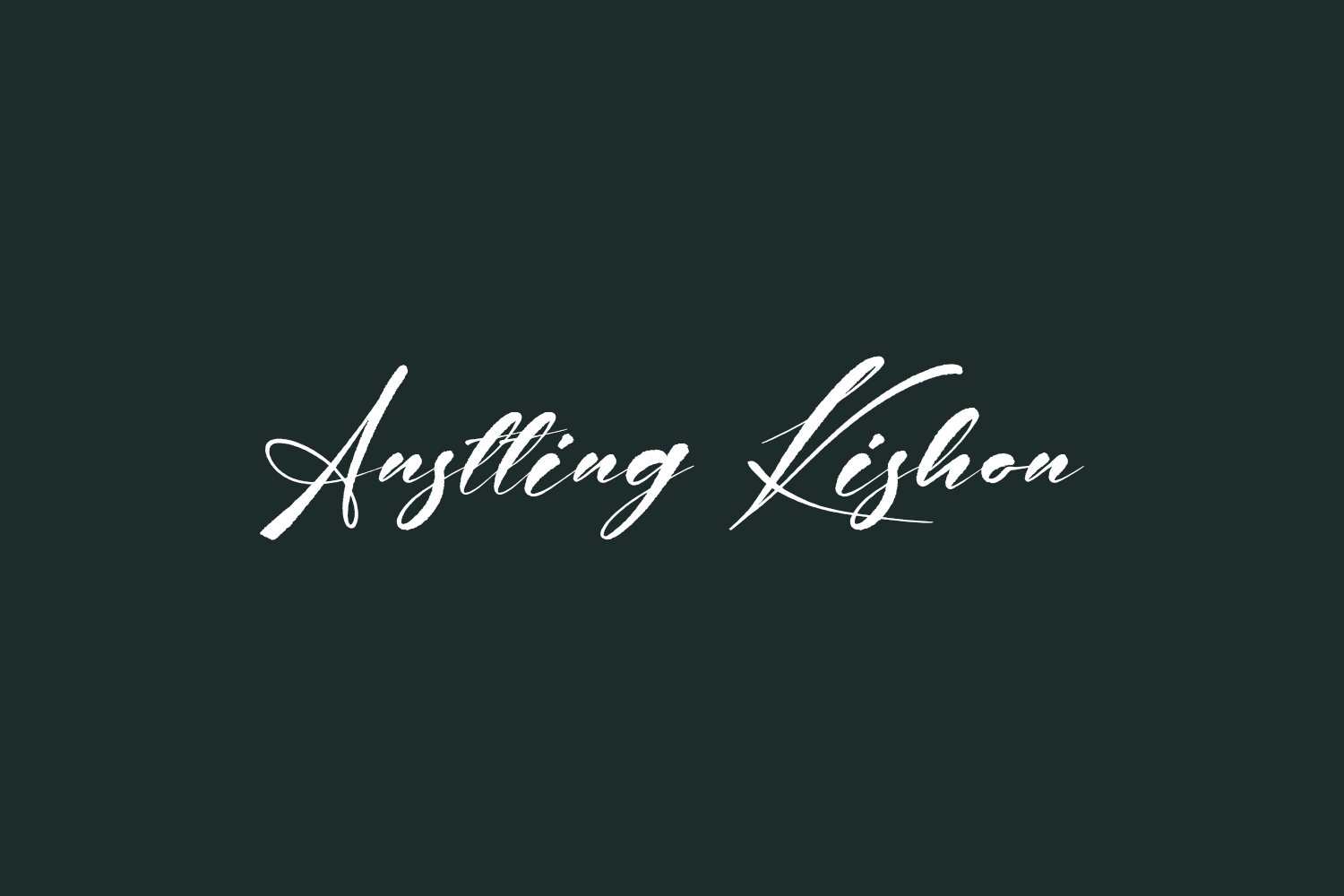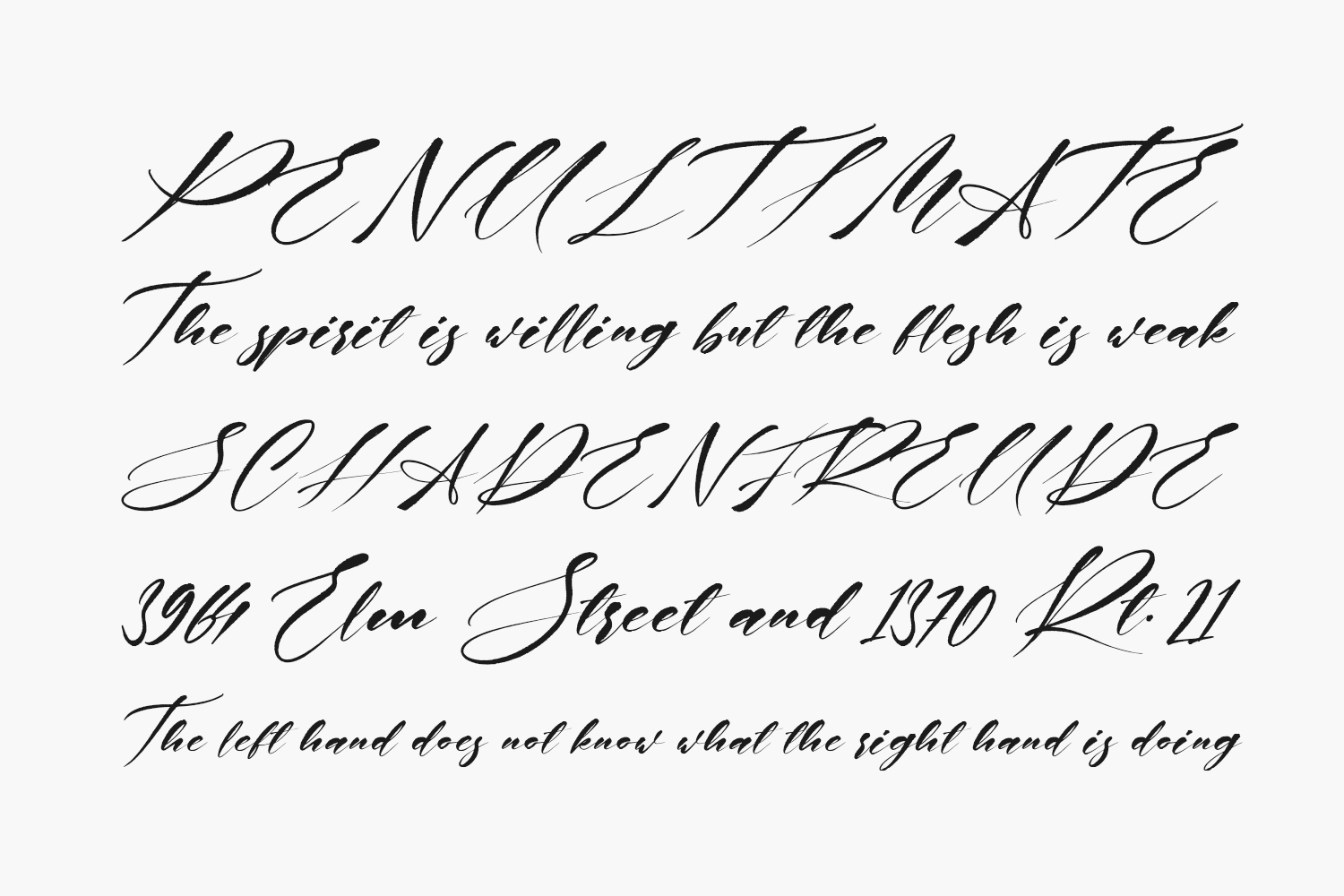
Anstting Kishon Free Font is a fun and light script font with an authentic twist. get inspired by its playful swashes. Anstting Kishon Free Font was designed by Pineungtype Missinklab and is free for personal use only. Please purchase the full version for commercial use.